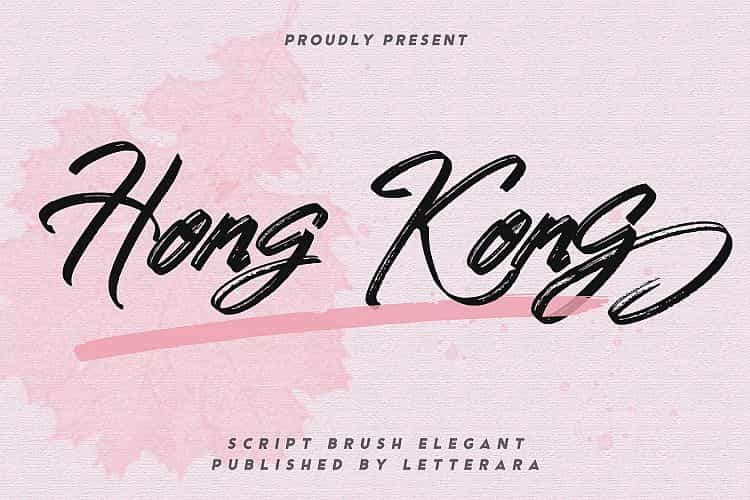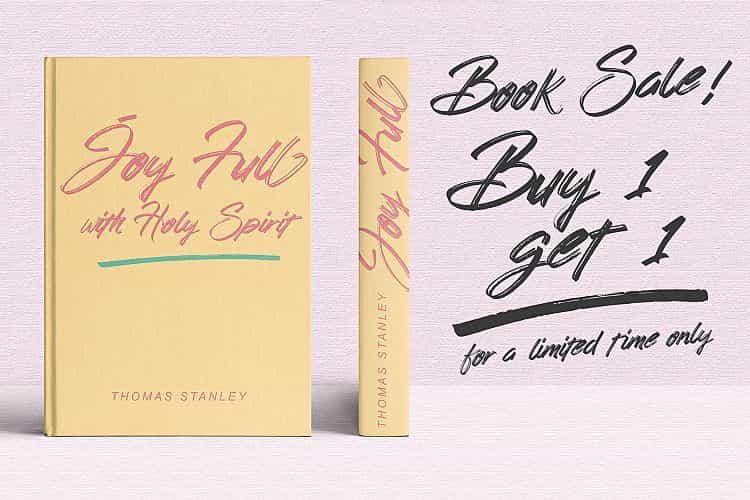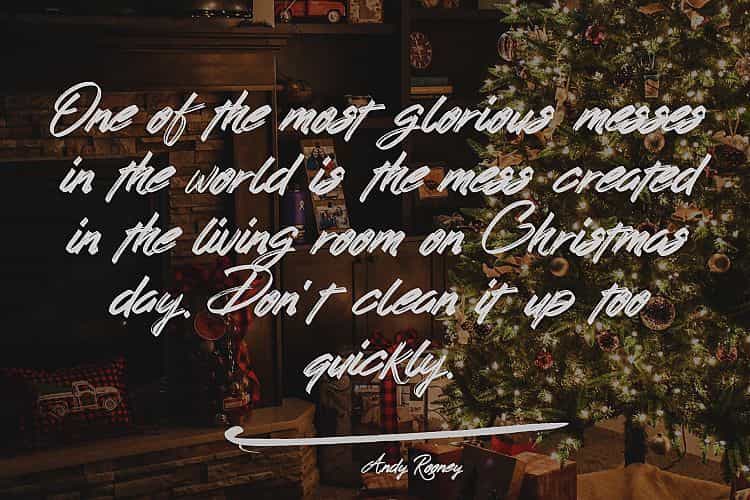
Introducing Hong Kong Font. It has rather subtle and sturdy look, at the same time it clearly looks more like the font used for men’s magazine. More focus on the combinations of fast lines and clear distinctions It’s has upper-case, lower-case, and ligature. The following are an example of how this font can be applied to other occasion such as a wedding, and Christmas.